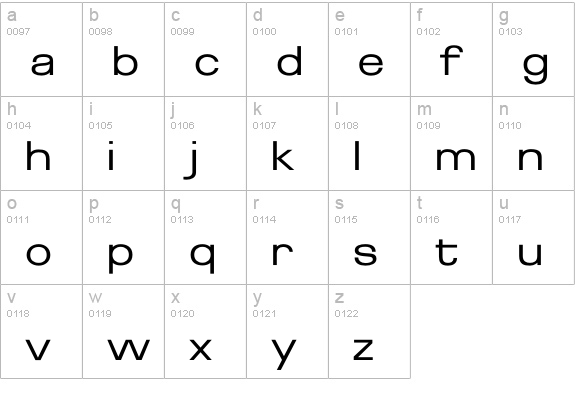
Introducing Brazilia font, a modern and stylish typeface that exudes elegance and sophistication. With its sleek lines and eye-catching curves, Brazilia is perfect for a wide range of design projects, from branding to marketing materials to editorial content. This versatile font is sure to make a statement and elevate your designs to the next level. One of the best things about Brazilia font is that it is completely free to download at FontsMarket.com. Yes, you read that right – this stunning font can be yours at no cost! Simply head over to FontsMarket.com to get your hands on Brazilia and start using it in your projects today. Don't miss out on this amazing opportunity to add a touch of glamour to your designs with Brazilia font.